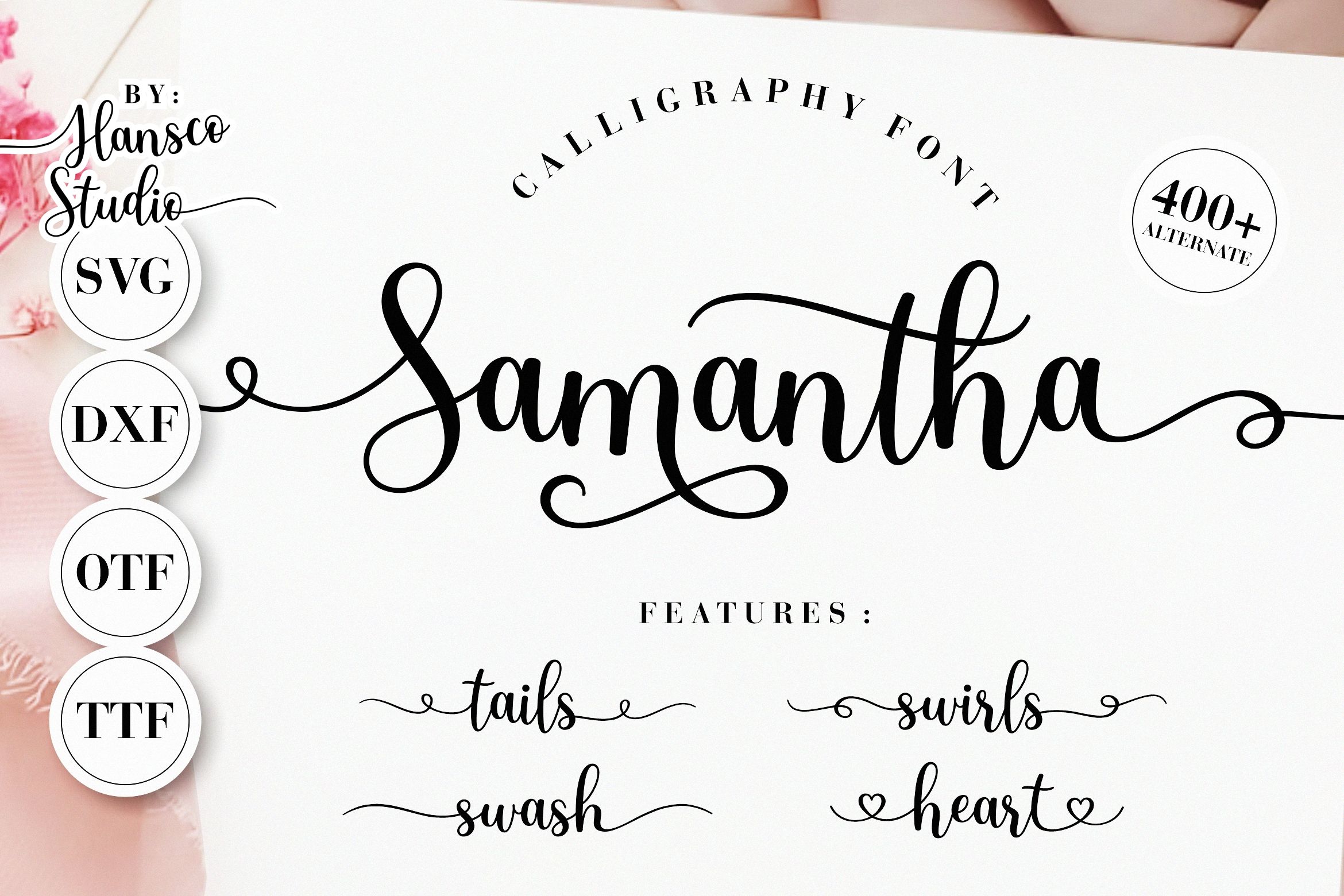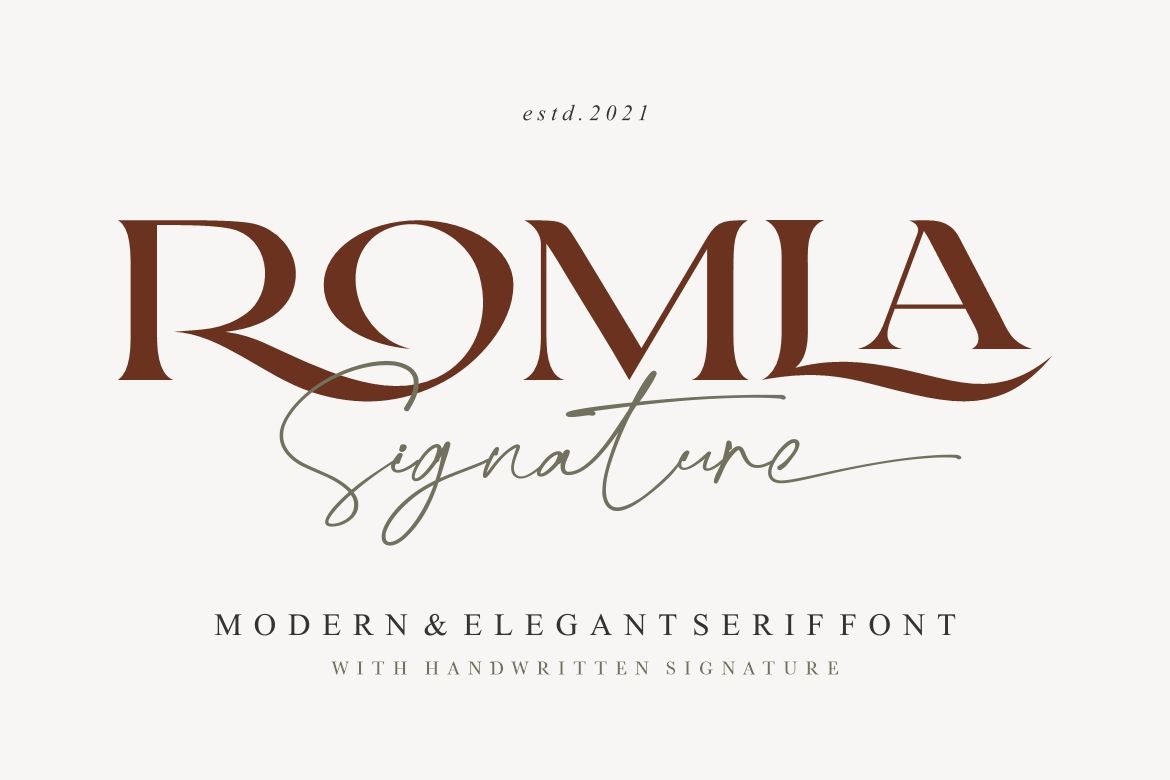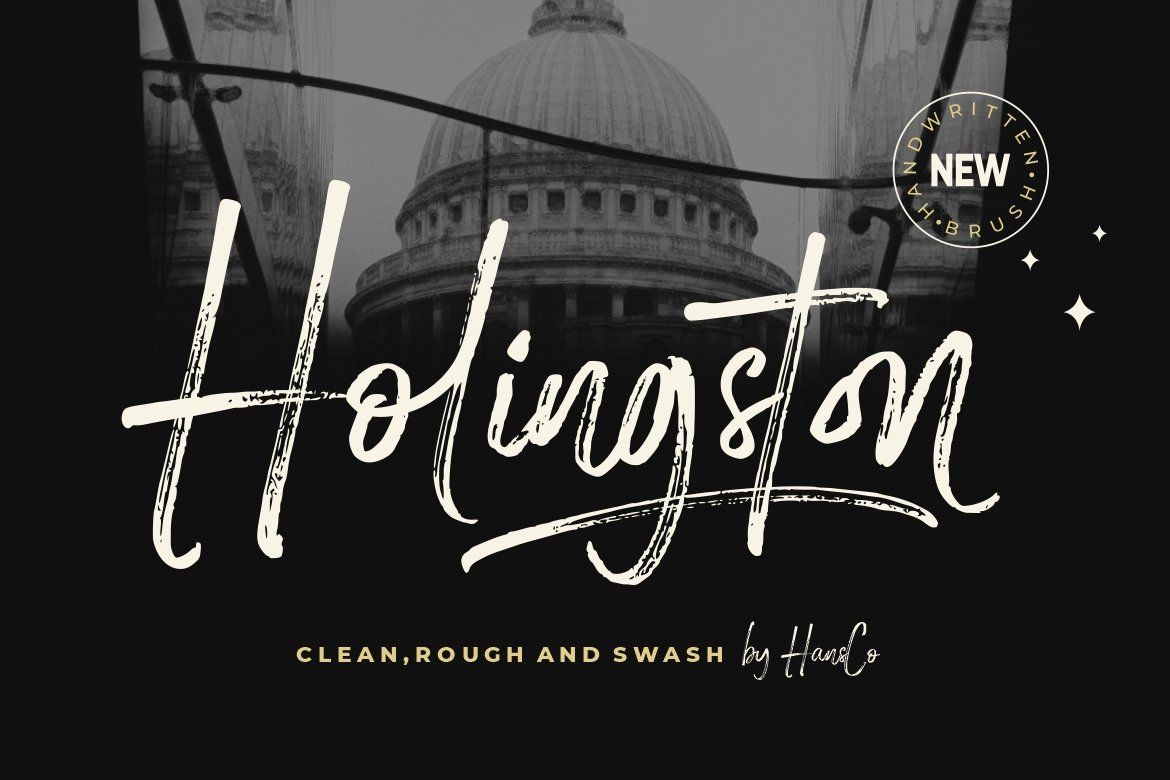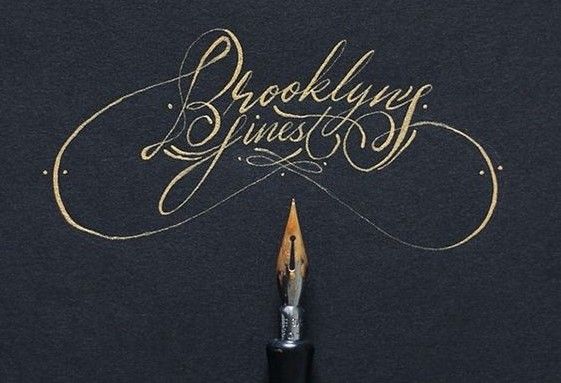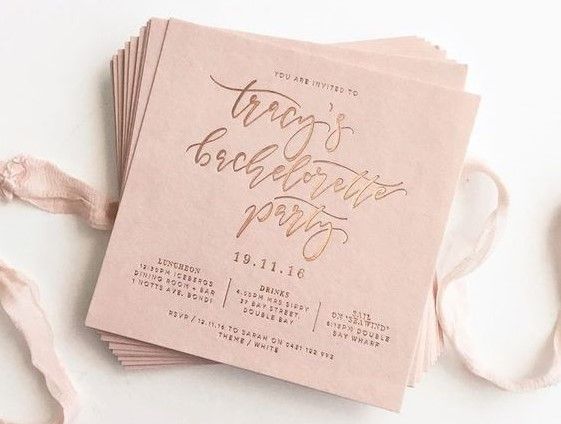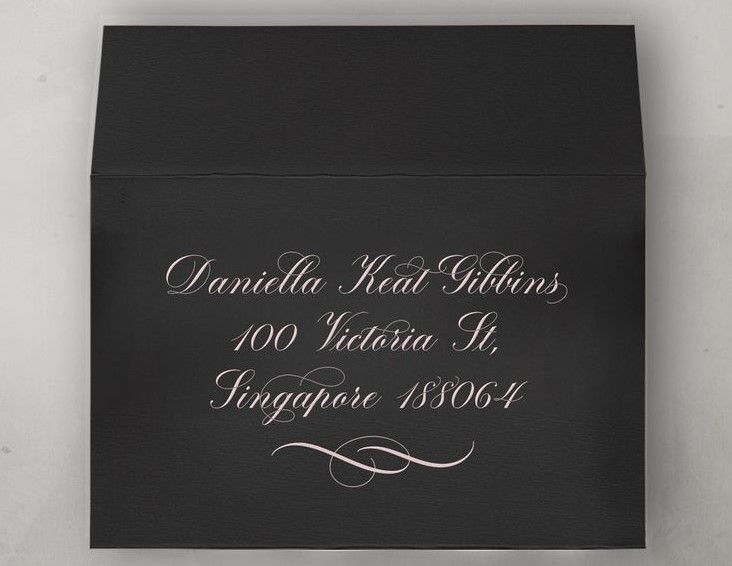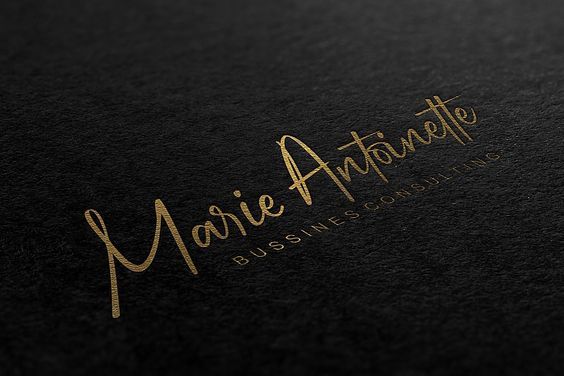
The Magic of The Artistry and History of Cursive Fonts
Cursive fonts have a timeless attraction that transcends generations. These elegant, flowing scripts are as beautiful as handwriting and essential in typography and design. In this article, we will explore the rich history, artistic nuances, the benefits of using, and the popular types of cursive fonts, along with their interesting examples.
The History of How the Cursive Writing Has Evolved
To begin the article, you should know a bit about the historical evolution of cursive fonts. Below is a summary of it.
The Beginnings
Cursive fonts are rooted in ancient civilizations, with early examples discovered in the Roman cursive font, a script developed for casual writing in a faster way. The word “cursive” itself derives from the Latin word “cursivus,” which means “flowing” or “running.”
Renaissance Flourishing and The Golden Age of Penmanship
Niccolo De Niccoli Italic Handwriting
In the Renaissance period marked by cultural, political, economic, and artistic “rebirth” in Europe, there was an awakening of interest in classical art and literature, leading to the revival of Roman cursive styles. Some Italian humanists, such as Niccolò de’ Niccoli and Petrarch, supported cursive fonts in their manuscripts.
Fast forward to the 18th and 19th centuries, marked by the golden age of penmanship, with embellished cursive scripts becoming one of the major indicators of the era. Prominent penmen like Zaner, Spencer, and Palmer influenced the cursive writing growth in the United States.
The Artistic Values of Cursive Fonts
As the name implies, it is obvious that cursive fonts are artistic and decorative. Nevertheless, you may also want to know the values of the fonts’ artistry.
• Calligraphy as an Art Form
Calligraphy is the art of beautiful handwriting, and fonts and cursive are a prominent subset of this art form. Skillful calligraphers utilize various tools, like nibs, brushes, and inks, to create stunning cursive scripts.
• Aesthetic Elements
Cursive fonts are characterized by flowing, connected letters, highlighting curves and loops. In addition to that, line variation, known as the thick and thin line balance, adds depth and elegance to cursive writing.
• Variations in Cursive Styles
Different cultures and periods worldwide have produced various cursive styles, from the flamboyant Spencerian script to the more restrained Copperplate. Each style has its unique charm and appeal.
• Modern Calligraphers and Designers
Contemporary calligraphers and graphic designers continue creating new cursive fonts that blend between tradition and innovation. Both digital tools and typography software have now expanded the possibilities for cursive font design.
The Benefits of Cursive Fonts for Your Designs
It is undeniable that cursive fonts offer a charm, a perfect combo of grace and readability that designers and consumers cannot resist. There is a large selection of styles you can choose from—from the vintage allure of the classic script to the smooth, spontaneous modern handwriting—fonts cursive for designs offer numerous opportunities to elevate your brand to a higher level.
Below are several benefits of cursive fonts on your design—for your business or other purposes.
Everlasting Appeal
The most significant advantage of using these beautiful fonts on your designs is their potential to create an immediate connection with those who view them. The fact that their lines tend to be curvaceous and have stylish flourishes has evoked nostalgia and familiarity. Moreover, the fonts’ unique designs can easily be adjusted to relate harmoniously with modern art. Therefore, cursive fonts can effectively bridge the space between classic and modern aesthetics, making your logos/designs timeless and influential.
Elegance
The next thing you can benefit from the fonts is elegance. Thanks to their flowing lines and unique shapes, font cursive naturally radiates elegance. They also give off mindful artistry of traditional handwriting that brings viewers a sophisticated touch and personalized connection. Integrating elegant fonts on your logo designs means your businesses may optimally reveal their brand identities interestingly and memorably.
Personalization
Rooted in handwriting, cursive fonts naturally offer a vibe of personal touch. The fonts bring out a hint of individuality in human writing, letting them create a sincere, personal connection with the viewers. Applying these fonts to your logo designs will make the business directly deliver its brand identity personally to the audience.
Not only can this personalization reflect the brand’s characteristics, but it can also resonate with the brand’s potential consumers. This is what makes cursive fonts versatile in doing their work. With a large variety of styles and feels, these exquisite fonts can be adjusted to attract certain demographics to create a sense of closeness and relatability, which will improve the bonding between your brand and the customers.